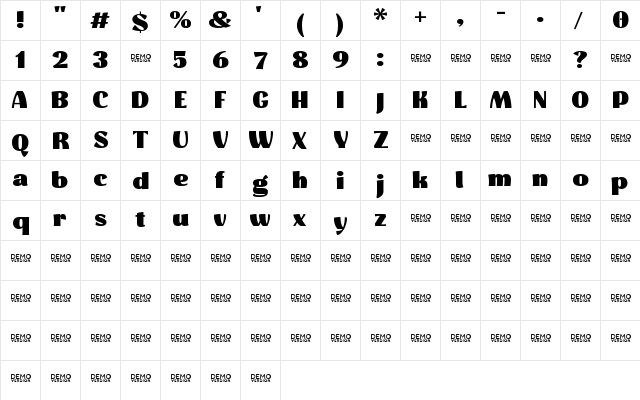
Hyper-Demo Black
| Foundry | Anita Juergeleit |
| Designer | Anita Juergeleit |
Design Context for Hyper-Demo Typeface
Hyper-Demo offers clean, dependable letterforms without strong stylistic allegiance, making it a practical choice for designers who need flexibility.